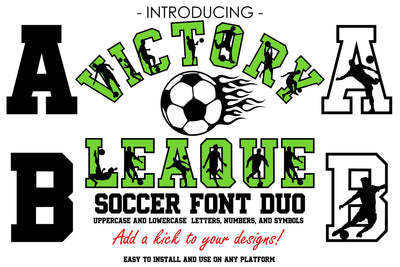
Victory League Sports Font | Bold Football Alphabet for Cricut & Silhouette
Introducing Victory League, the ultimate soccer-themed font designed to elevate your sports-related projects. This versatile font features bold, dynamic letters and numbers, perfect for crafting personalized soccer jerseys, team banners, sports invitations, and more. Whether you're a soccer mom creating custom gear or a designer working on sports merchandise, Victory League adds a professional and spirited touch to your creations. Compatible with popular cutting machines like Cricut and Silhouette, this font comes in multiple formats (OTF, TTF, SVG, DXF, EPS, PDF, AI) to suit all your design needs. Score big with Victory League and bring your soccer projects to life!